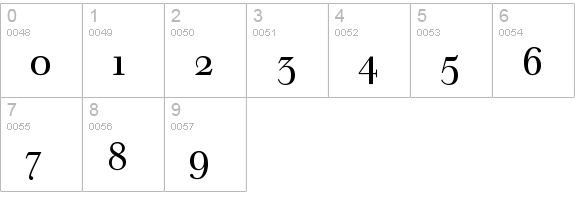
Walbaum Standard Expert Regular OsF Font Details
Walbaum Standard Expert Regular OsF is the standard, neutral variant in the Walbaum typeface family \xE2\x80\x94 well suited to general body text, paragraphs, and standard typographic work.
The Walbaum Standard Expert Regular OsF font is a beautifully crafted typeface that exudes elegance and sophistication. With its precise curves and delicate serifs, this font is perfect for projects that require a touch of refinement. Designed by renowned typographer Justus Erich Walbaum, this font showcases his expertise in creating timeless and versatile typefaces. The Walbaum Standard Expert Regular OsF font strikes the perfect balance between traditional and modern, making it suitable for a wide range of applications. Whether you're designing a wedding invitation, a book cover, or a corporate logo, the Walbaum Standard Expert Regular OsF font will elevate your design to new heights. Its clean and legible letterforms ensure that your message is conveyed with clarity and style. One of the best things about the Walbaum Standard Expert Regular OsF font is that it is available for free download at FontsMarket.com. This means that you can easily access this exceptional typeface and use it in your projects without any cost. So why wait? Upgrade your designs with the timeless beauty of the Walbaum Standard Expert Regular OsF font. Download it for free at FontsMarket.com and let your creativity soar.